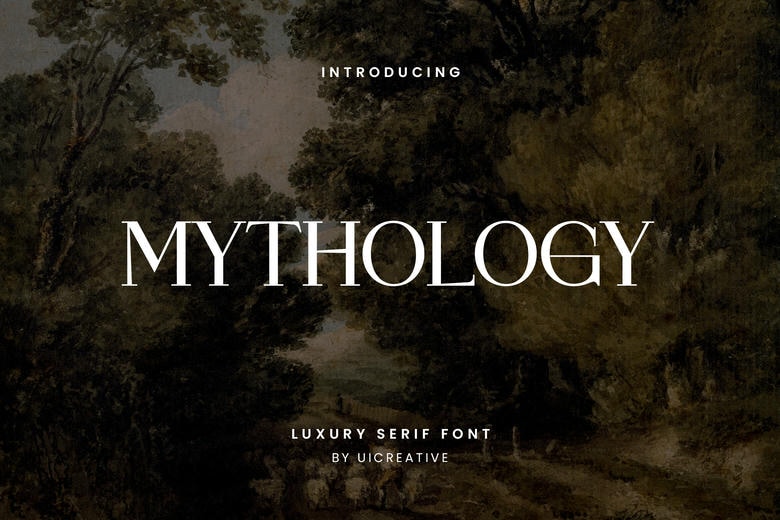
Mythology is an amazing and highly contrasted serif typeface. Of course, fall in love with its incredibly versatile style and it can be used to make perfect wedding invitations, stunning pieces of art on the stationery, bright social media posts and much more.
Mythology Serif Font